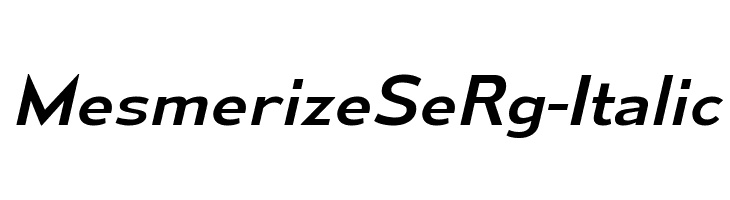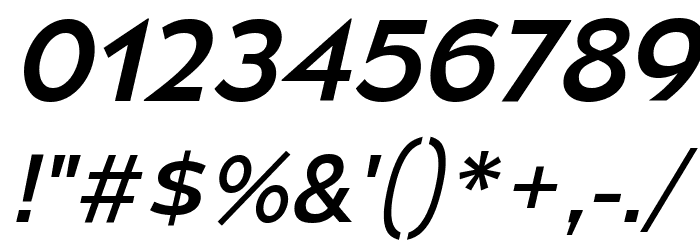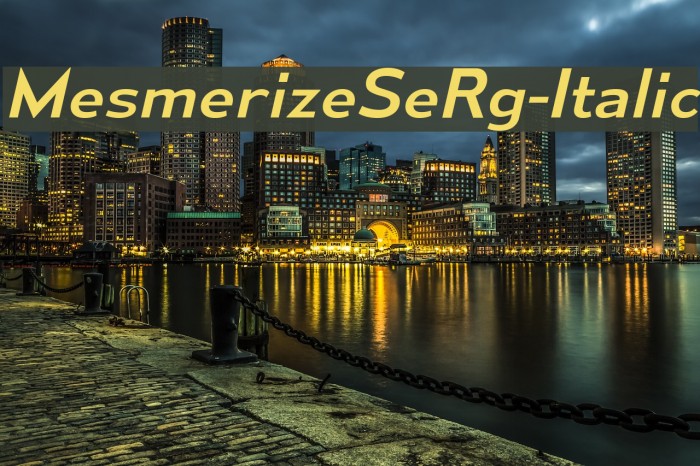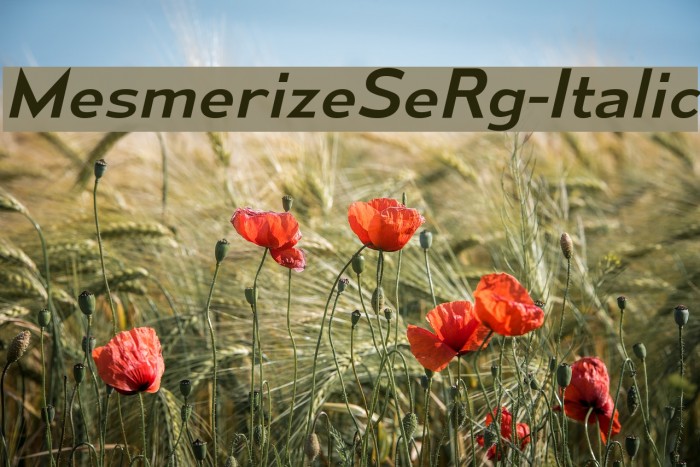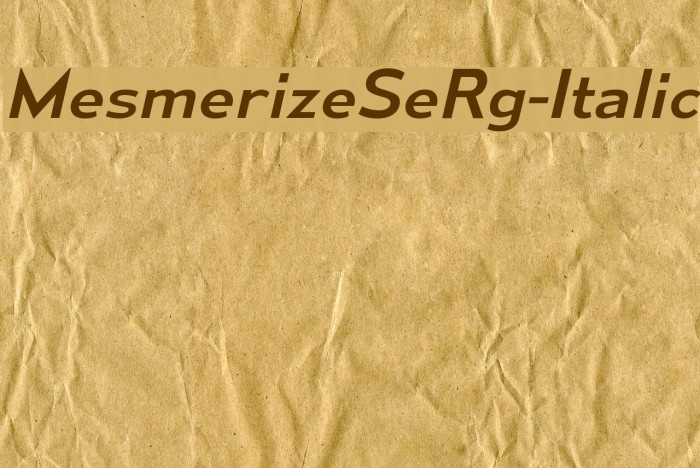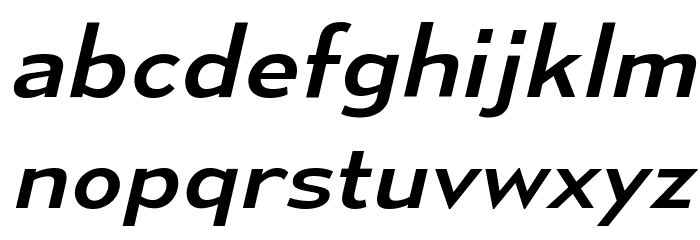
MesmerizeSeRg-Italic Font
This font exhibits a sleek and modern design with a slight italic slant, giving it a dynamic and forward-moving appearance. The characters are well-proportioned, with a consistent stroke width that maintains readability while adding a touch of elegance. The uppercase letters are bold and commanding, while the lowercase letters are smooth and flowing, creating a harmonious balance. The numerals are clear and distinct, making them suitable for various applications. The special characters are designed with the same attention to detail, ensuring they integrate seamlessly with the rest of the font. Overall, this font is versatile and can be used in a variety of contexts where a contemporary and stylish look is desired.
A sleek, modern italic font with consistent stroke width and dynamic appearance.
• Proposed Projects: Ideal for branding, advertising, digital media, and editorial design projects.
• Category: Sans-Serif
• Bold: No
• Italic: Yes
• Weight: Regular
• Width: Normal
• Character Spacing: Normal
• Contrast: Low
• Overall Style: Modern
• Use Case: Headlines, Body text, Logos